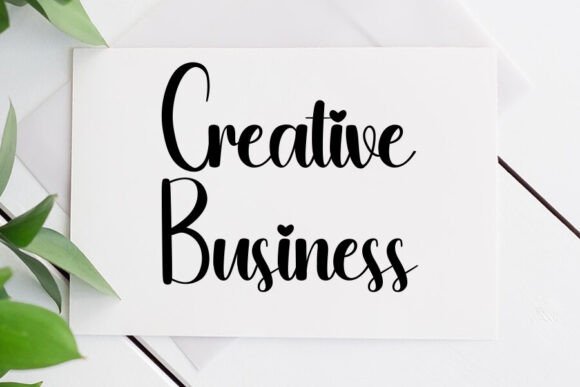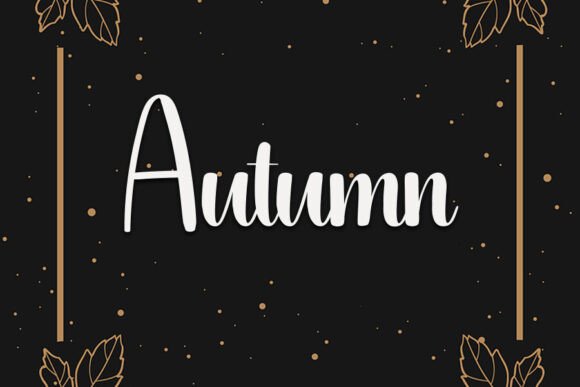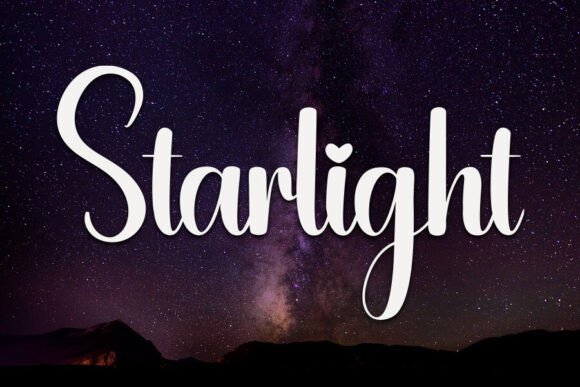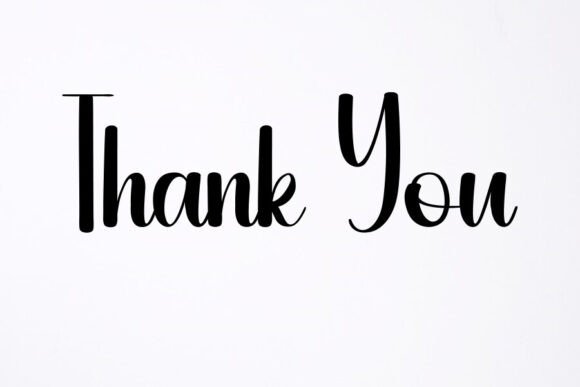
Discover the Charm of Finding Font: A Simple Handwritten Delight
Are you on the hunt for a font that adds a touch of simplicity and natural elegance to your designs? Look no further than Finding Font, a beautiful handwritten font that’s perfect for a wide range of projects. From greeting cards to headlines, and even social media graphics, Finding Font is a versatile typeface that’s sure to become a staple in your design toolkit.
Handwritten fonts have a unique charm that can instantly elevate your designs from ordinary to extraordinary. They add a personal touch, making your text feel more approachable and human. Finding Font takes this concept to the next level with its simple, yet elegant handwritten style. Each letter is carefully crafted to create a sense of fluidity and movement, making it perfect for designs that require a touch of personality.
What Makes Finding Font So Special?
So, what sets Finding Font apart from other handwritten fonts? Here are just a few reasons why designers and crafters love this font:
- Simple and Natural Feel: Finding Font has a light, airy feel that’s perfect for designs that require a subtle touch. It’s ideal for creating a sense of calmness and serenity in your designs.
- Versatile: This font is incredibly versatile and can be used for a wide range of projects, from digital designs to print materials. Whether you’re creating a greeting card, a social media graphic, or a headline, Finding Font is up to the task.
- Easy to Read: Despite its handwritten nature, Finding Font is incredibly easy to read, making it perfect for designs that require a clear and concise message.
Applications of Finding Font
So, what can you use Finding Font for? The possibilities are endless! Here are a few ideas to get you started:
- Greeting Cards: Add a personal touch to your greeting cards with Finding Font. Its simple and natural feel makes it perfect for creating heartfelt messages.
- Headlines: Use Finding Font to create eye-catching headlines that are sure to grab attention. Its elegant style makes it perfect for titles, headings, and more.
- Social Media Graphics: Finding Font is perfect for creating social media graphics that require a touch of personality. Use it to create engaging posts, quotes, and more.
- Branding: Use Finding Font to create a unique brand identity that’s simple, yet elegant. Its versatility makes it perfect for creating a consistent brand image across various platforms.
Tips for Using Finding Font
Here are a few tips for getting the most out of Finding Font:
- Pair it with Other Fonts: Finding Font pairs well with other fonts, especially sans-serif fonts. Experiment with different combinations to find the perfect pairing for your design.
- Experiment with Colors: Finding Font looks great in a variety of colors, from bold and bright to soft and pastel. Experiment with different colors to find the perfect match for your design.
- Use it for Emphasis: Use Finding Font to add emphasis to certain words or phrases in your design. Its elegant style makes it perfect for creating visual interest.